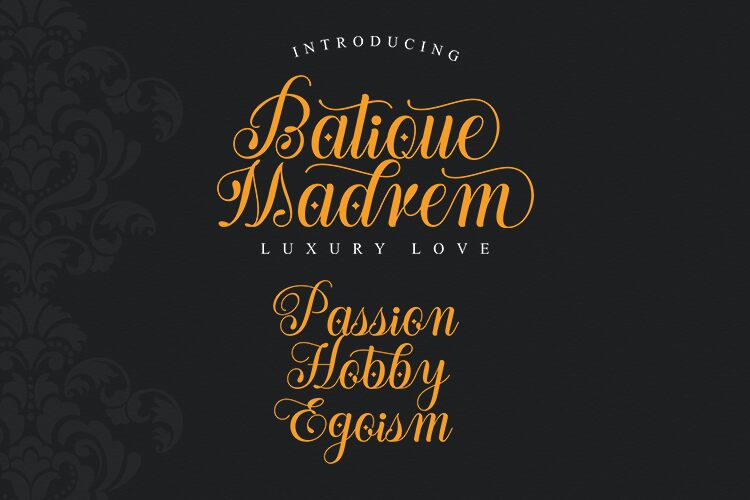
Batique Madrem
Batique Madrem is a stunning calligraphy font designed by Four Lines. With its semi-light weight, this font brings a touch of elegance to any project. Batique Madrem is perfect for creating invitations, logos, and branding materials that need a touch of sophistication. Its flowing curves and beautiful swashes are sure to catch the eye of anyone who sees it. Whether you're designing wedding stationery or adding a touch of luxury to your website, Batique Madrem is the perfect choice for any project that needs a bit of artistic flair. Try it out today and see how it can elevate your design!